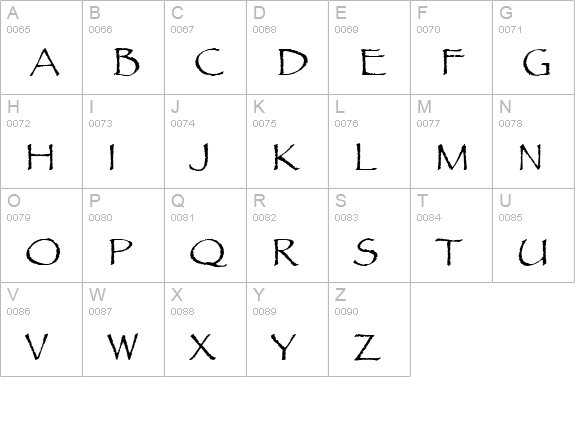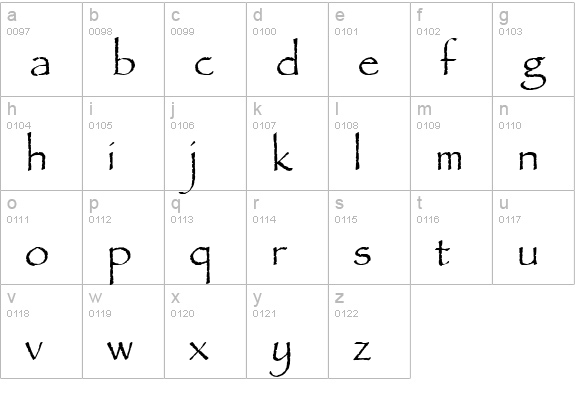
Papyrus LET Plain is a free for personal use font in the Script > Handwritten category, designed by Samplefont22. It has been downloaded 51 times and is available for Windows, Mac and Linux.
Papyrus LET Plain font is a versatile and elegant typeface that exudes a sense of natural sophistication. Its distinctive calligraphic style and graceful curves make it perfect for a wide range of design projects, from invitations to branding materials. This font's unique blend of ancient and modern elements adds a touch of timeless charm to any text.